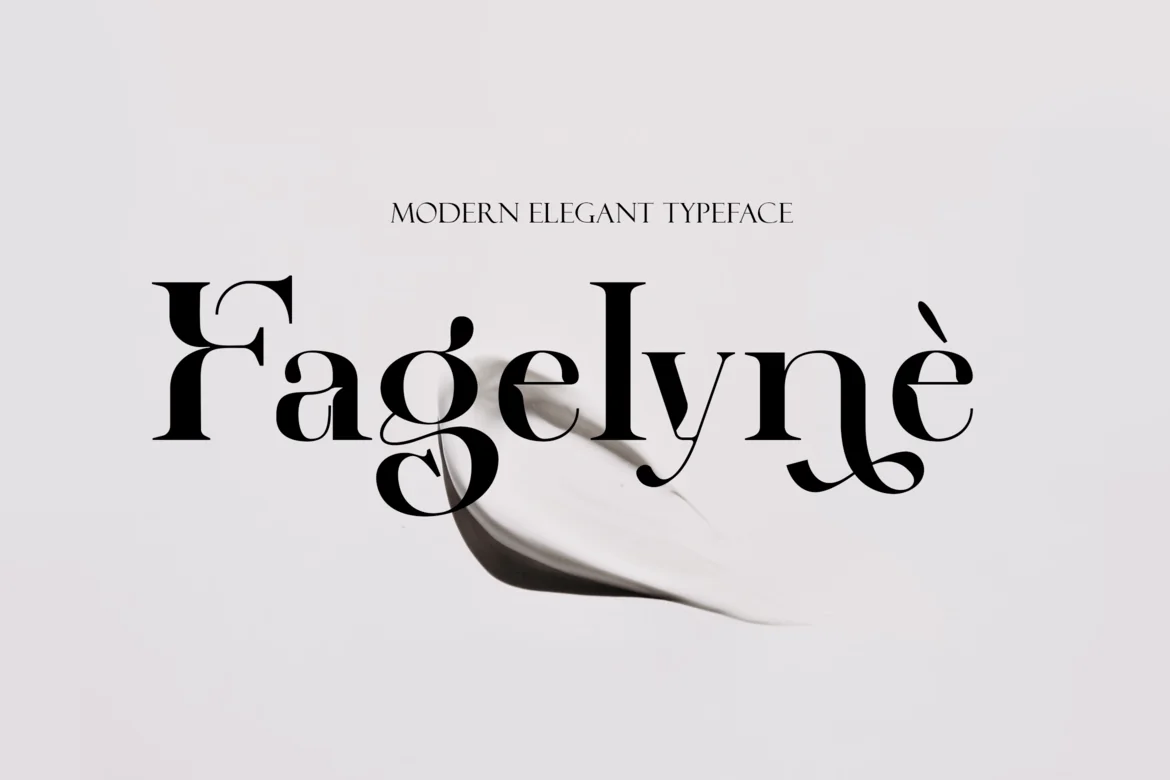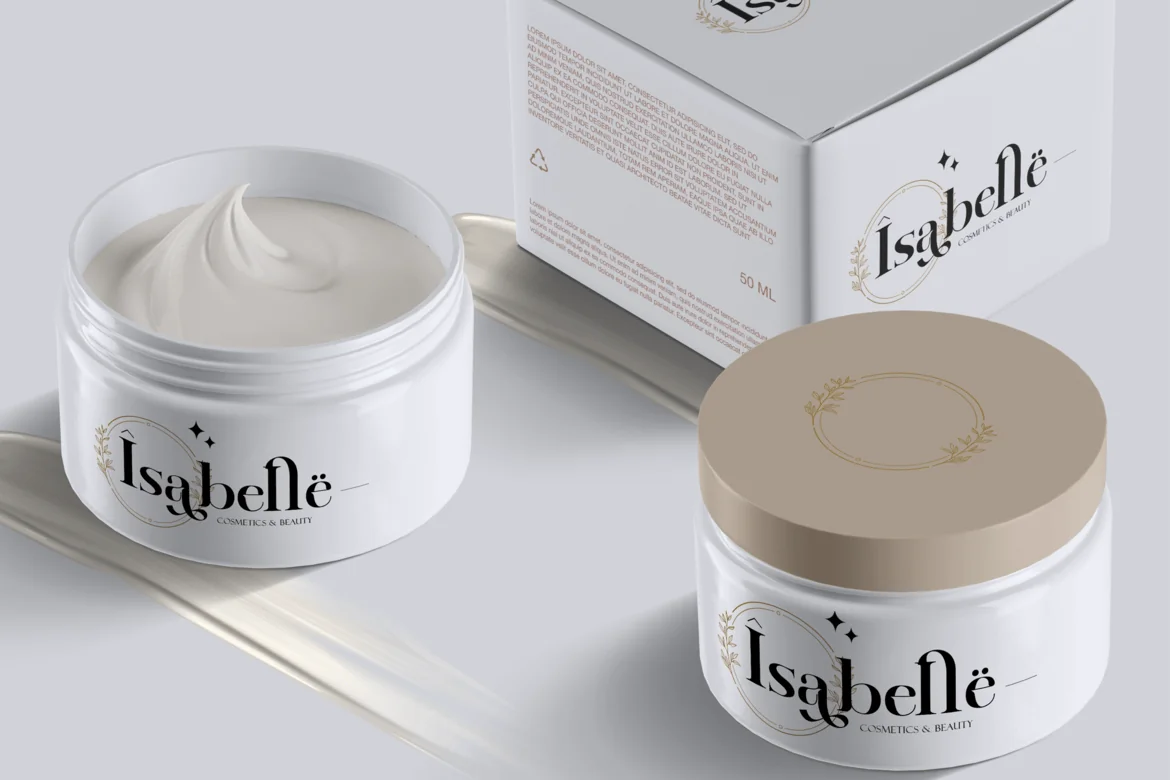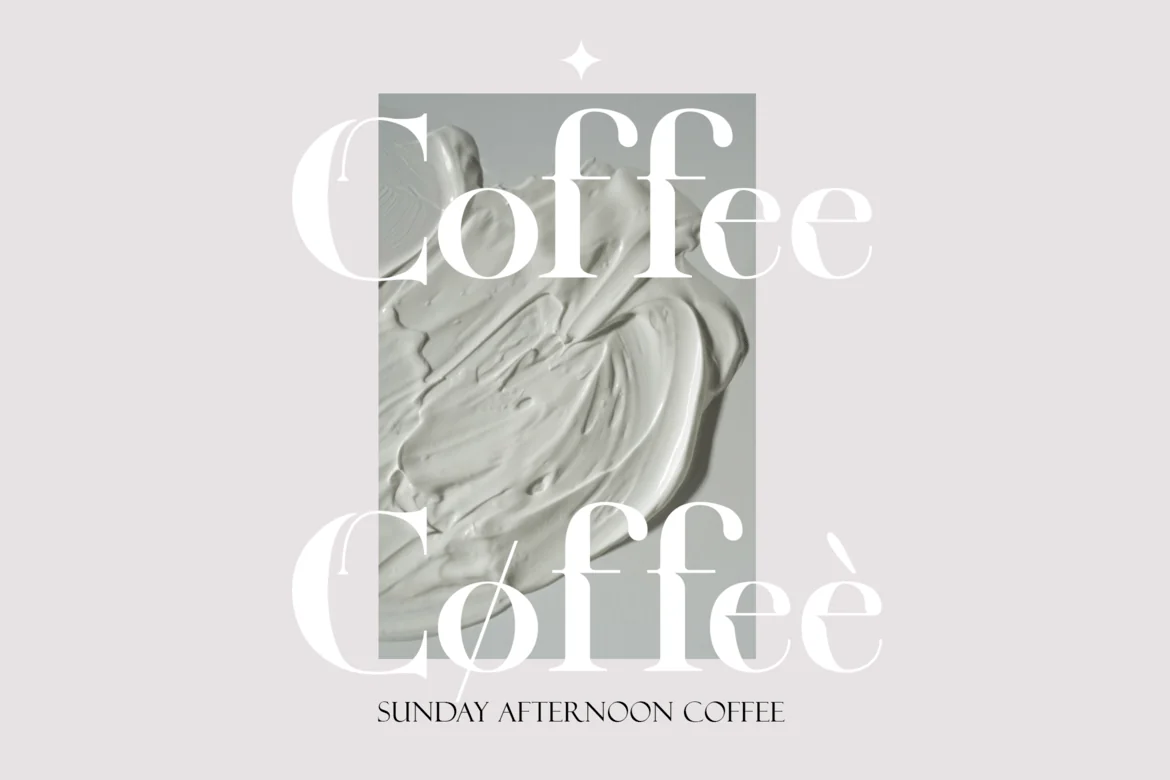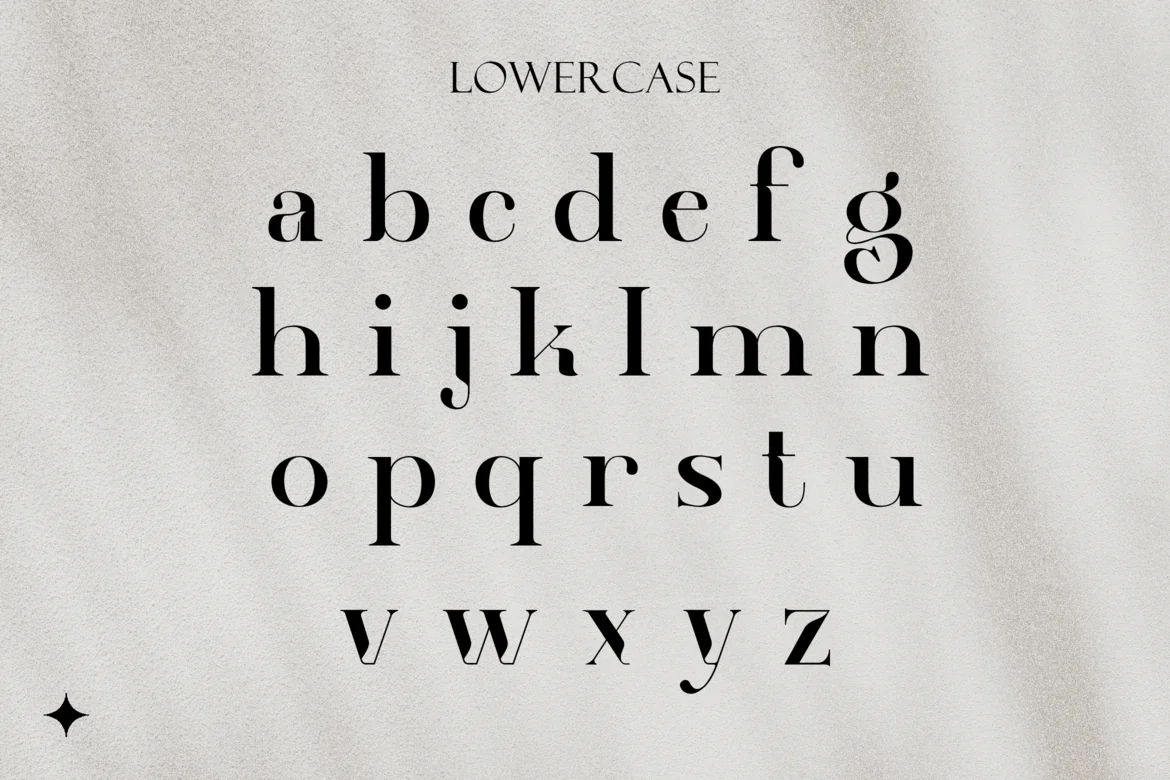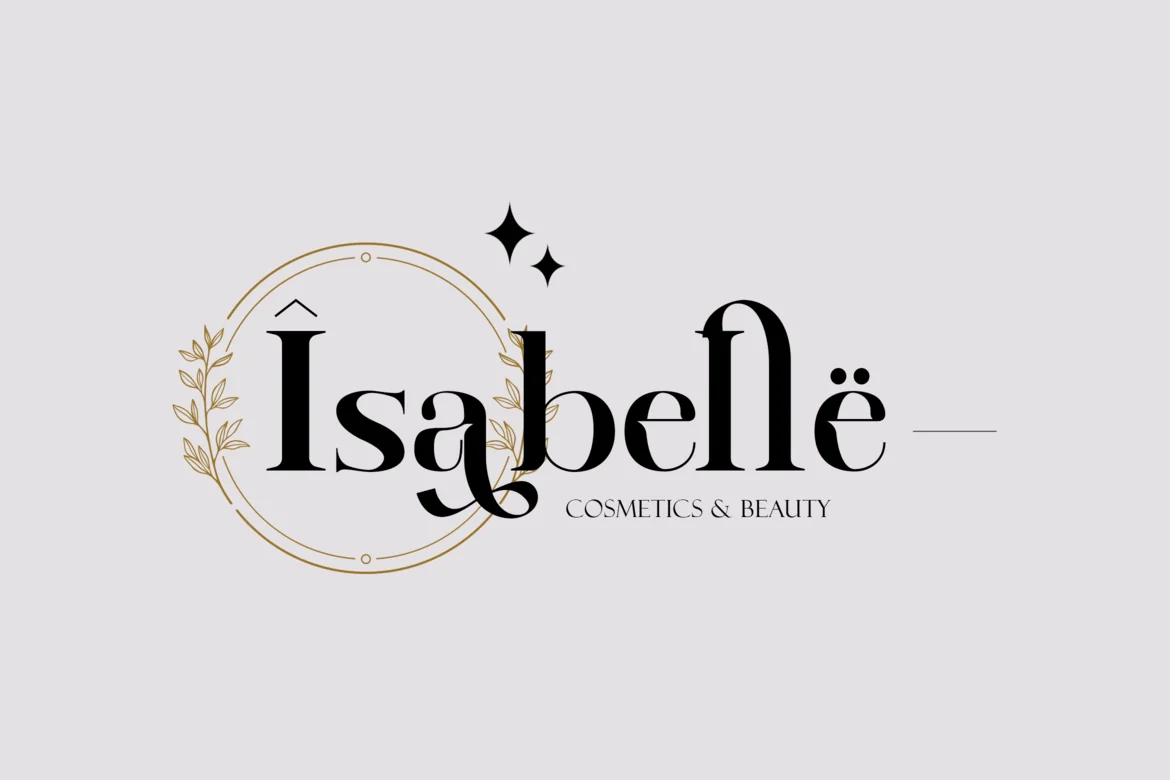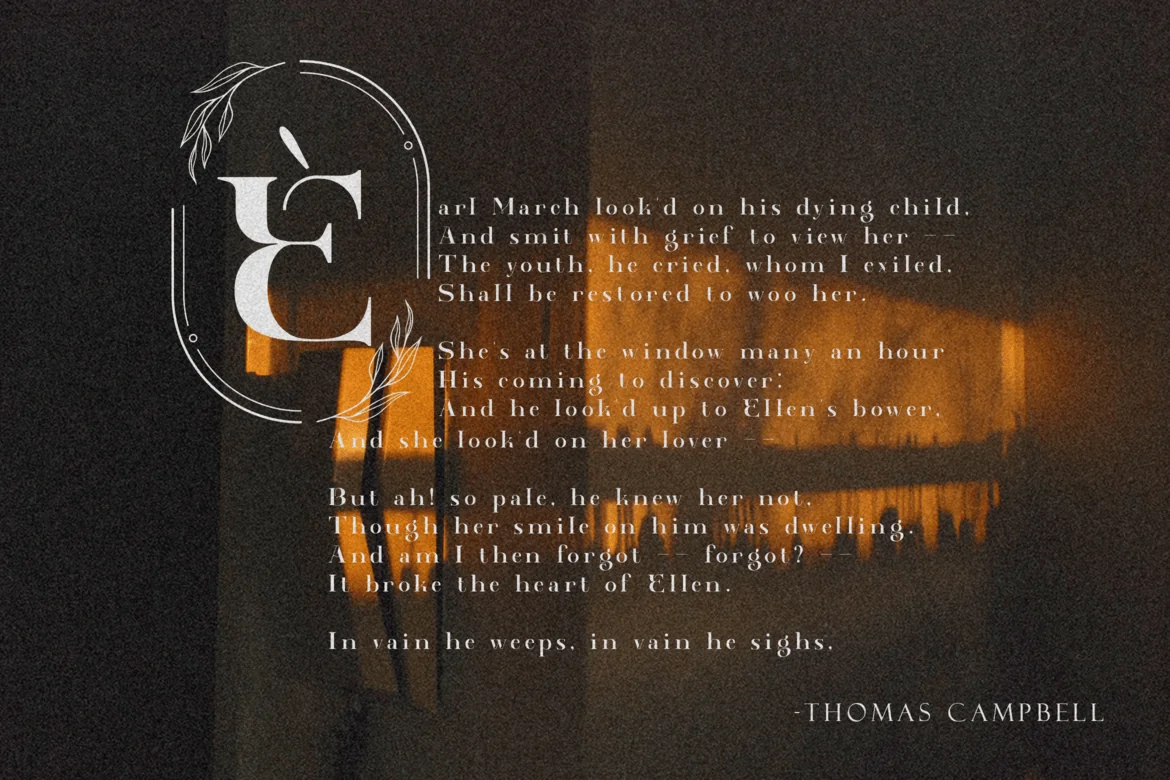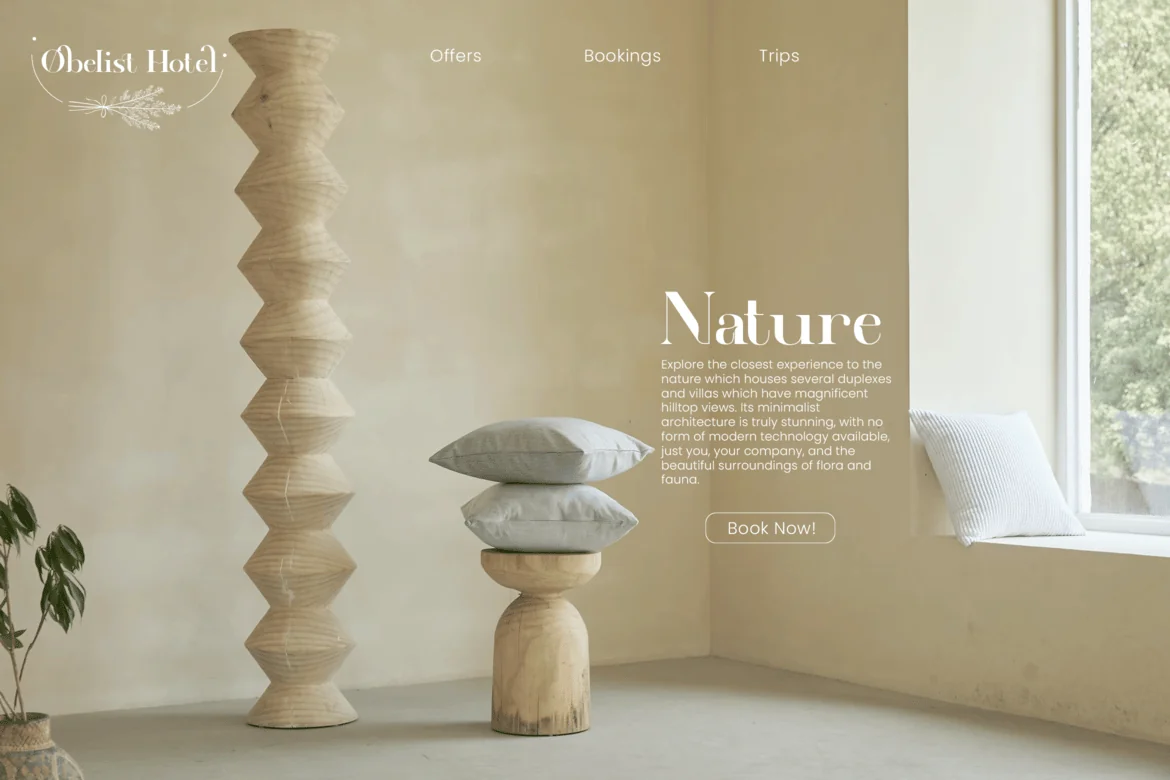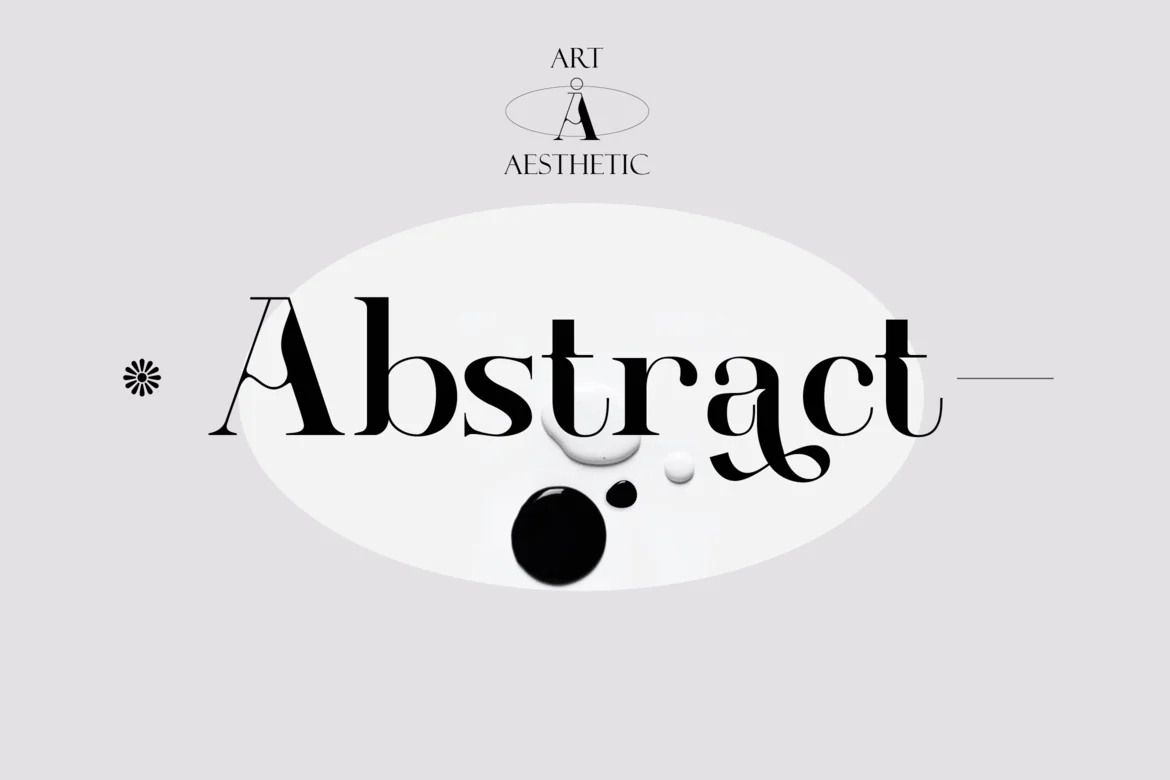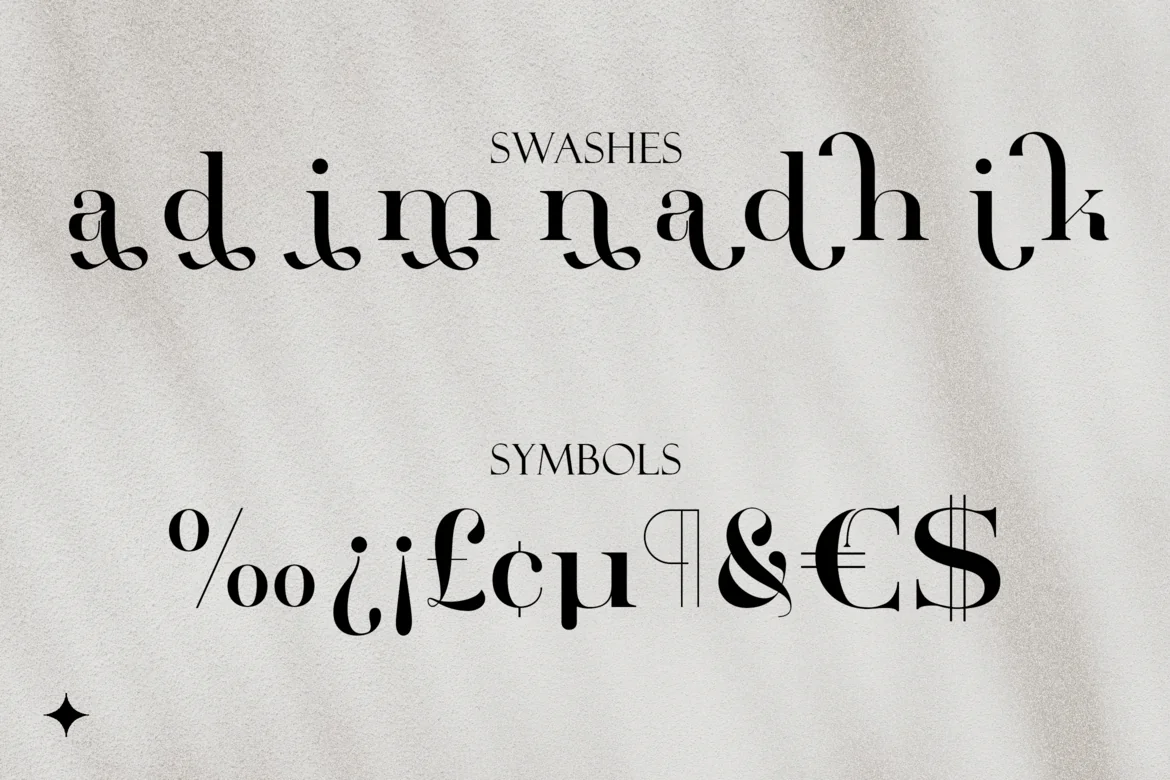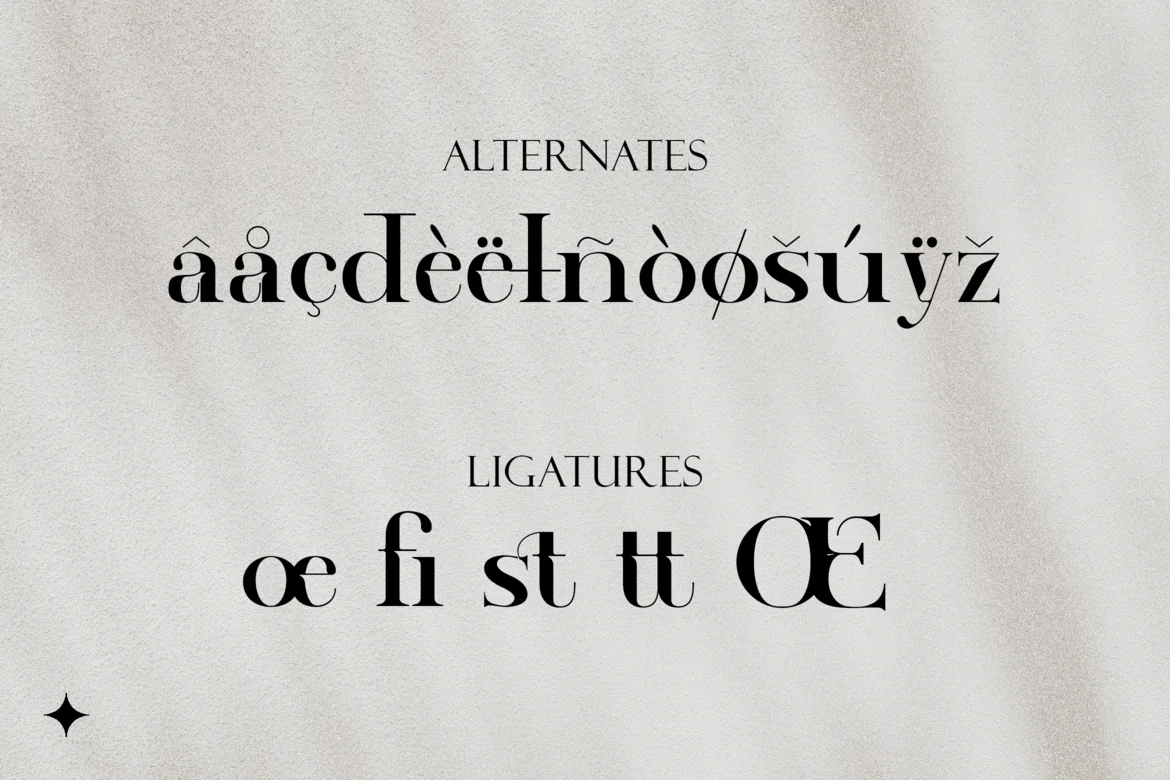
Modern Elegant Font – Fagelyne
Looking for a modern and extravagant font that is easily memorable? In the sea of similar designs, something unconventional but tasteful will certainly put your brand on the map.
Introducing Fagelyne – A Modern Elegant Font.
Use this font for promotional material, ads, web pages, apps, clothing, printed material, and anything else you need to make your brand shine.
- Multilingual & Ligature Support
- Full sets of Punctuation and Numerals